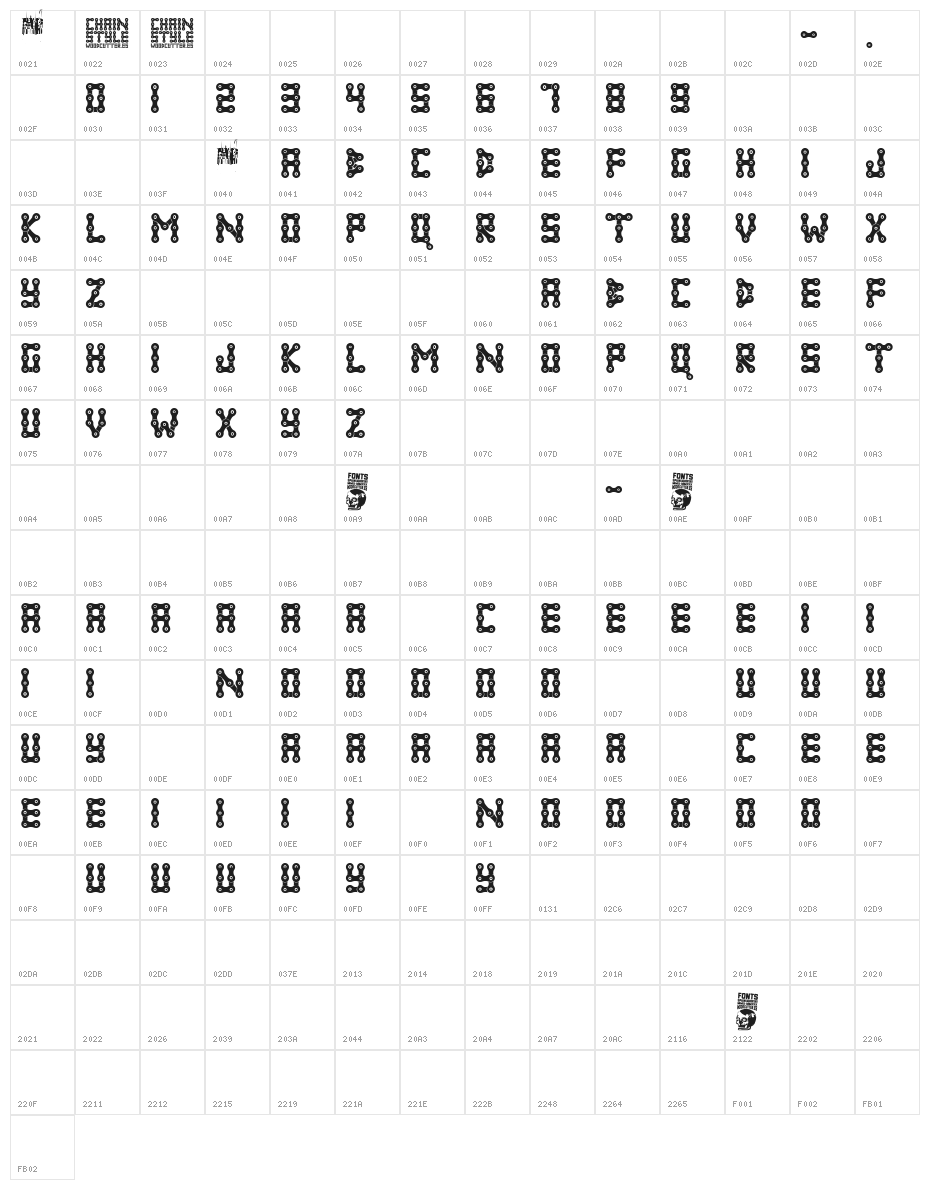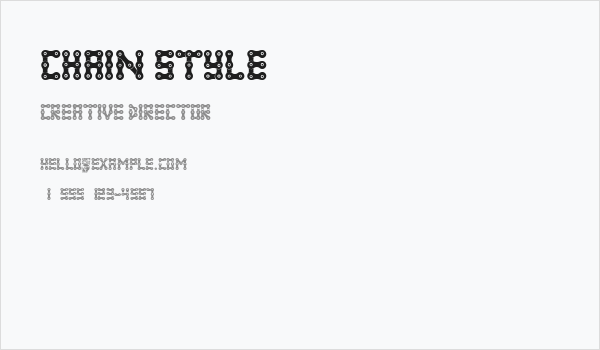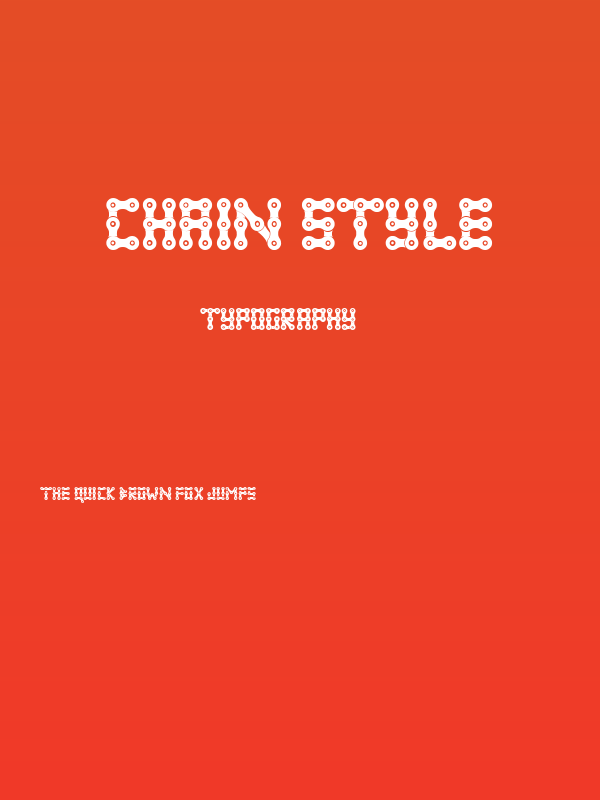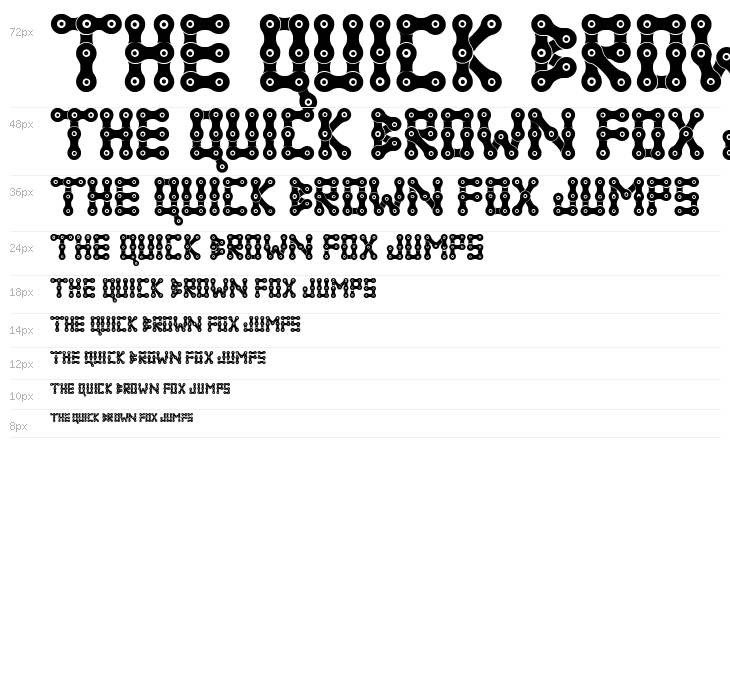
Chain Style Font
Chain Style Description
This font features a unique design that mimics the appearance of a bicycle chain. Each character is composed of interconnected links, creating a mechanical and industrial aesthetic. The bold and rounded shapes give it a sturdy and robust look, while the circular elements within the links add a touch of intricacy. This font is highly decorative and stands out due to its unconventional style, making it ideal for projects that require a distinctive and eye-catching typeface. The consistent thickness of the strokes and the uniform spacing between the links contribute to its cohesive appearance.
| Overall Style | Industrial, Mechanical, Decorative |
| Use Case | Logos, Posters, Branding |
| Proposed Projects | Ideal for posters, logos, and branding projects that require a mechanical or industrial theme. |